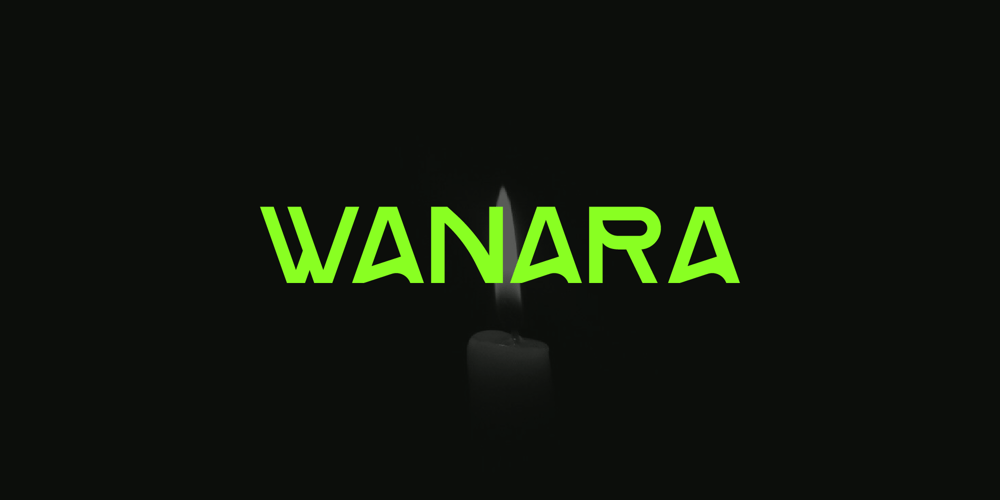
Wanara
Wanara font
Wanara Font Family was designed by Iwan Alwan and published by Artiveko. Wanara contains 2 styles and family package options. Wanara is a captivating display logo font, characterized by its unique shapes and diverse variations in uppercase and lowercase letters. Designed by Iwan Alwan, this font offers extensive multilingual support, making it versatile for global use. Wanara’s distinctive style ensures your designs stand out, adding a touch of originality and creativity. Perfect for branding, logos, and bold statements, Wanara transforms ordinary text into extraordinary visual experiences.